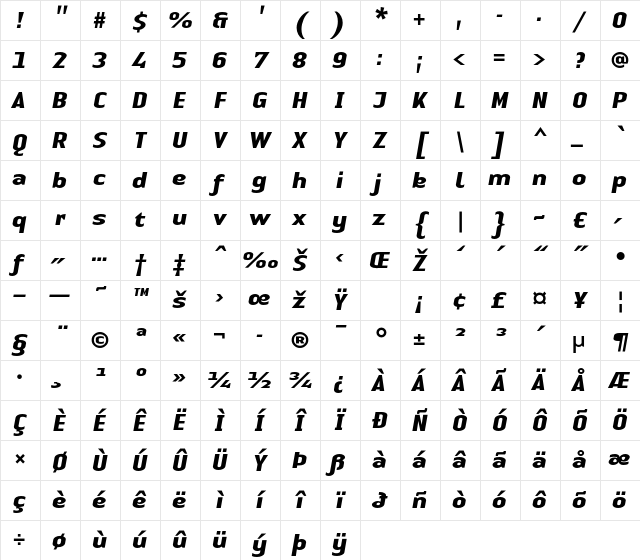
LTAuthenticSans Regular
Complete LTAuthenticSans Regular glyph index. Displaying only characters natively supported by LTAuthenticSans Regular font.
Design Context for LTAuthenticSans
LTAuthenticSans is a composed and adaptable typeface that performs quietly and consistently across a wide range of design contexts.
Pro Tip: Use LTAuthenticSans in both headline and body roles to test its range before committing to a single application.